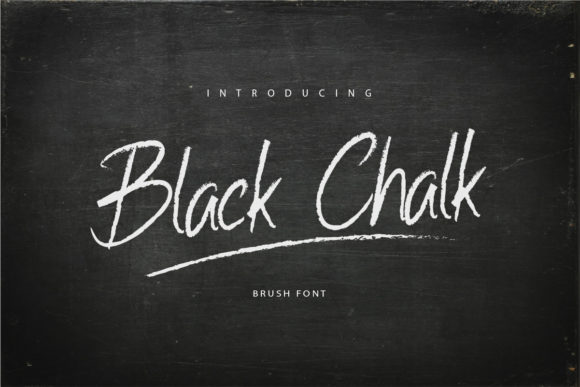
Black Chalk Font: A Unique Script for Serious and Sincere Designs
The world of typography is vast and diverse, with numerous font styles to choose from, each with its own unique character and charm. One such font that has gained popularity in recent times is the Black Chalk Font. This textured brush font, inspired by the humble chalk, is making waves in the design community for its distinctive look and feel. In this article, we’ll delve into the world of Black Chalk Font, exploring its features, benefits, and uses, as well as provide tips on how to incorporate it into your designs.
What is Black Chalk Font?
Black Chalk Font is a script font that mimics the look of chalk writing. With its textured, brush-like strokes, this font is perfect for adding a personal touch to your designs. The font is inspired by the traditional chalkboard writing, but with a modern twist. The result is a unique and eye-catching script that exudes a sense of seriousness and sincerity.
Features of Black Chalk Font
So, what makes Black Chalk Font stand out from the rest? Here are some of its key features:
- Textured brush strokes: The font features textured, brush-like strokes that give it a unique, hand-written look.
- Inspired by chalk: The font is inspired by traditional chalkboard writing, but with a modern twist.
- Script style: Black Chalk Font is a script font, perfect for adding a personal touch to your designs.
- Serious and sincere feel: The font’s distinctive look and feel make it perfect for designs that require a serious and sincere tone.
Benefits of Using Black Chalk Font
So, why should you use Black Chalk Font in your designs? Here are some benefits:
- Adds a personal touch: The font’s hand-written look and feel add a personal touch to your designs, making them more relatable and engaging.
- Creates a serious and sincere tone: The font’s distinctive look and feel make it perfect for designs that require a serious and sincere tone, such as business cards, brochures, and posters.
- Versatile: Black Chalk Font can be used in a variety of design projects, from branding and advertising to packaging and web design.
- Unique: The font’s unique look and feel make it stand out from more traditional fonts, adding a touch of creativity and originality to your designs.
How to Use Black Chalk Font
Now that we’ve explored the features and benefits of Black Chalk Font, let’s talk about how to use it in your designs. Here are some tips:
- Pair it with a simple font: To create visual interest, pair Black Chalk Font with a simple font, such as a sans-serif font.
- Use it for headings and titles: The font’s distinctive look and feel make it perfect for headings and titles, adding a touch of creativity and originality to your designs.
- Experiment with colors: Black Chalk Font looks great in a variety of colors, from bold and bright to muted and pastel.
- Use it for branding and advertising: The font’s unique look and feel make it perfect for branding and advertising projects, such as business cards, brochures, and posters.
Example 1: Business Card Design
Black Chalk Font can be used to create a unique and eye-catching business card design. Pair it with a simple font, such as a sans-serif font, and experiment with colors to create a design that reflects your brand’s personality.
Example 2: Poster Design
Black Chalk Font can also be used to create a bold and eye-catching poster design. Use it for headings and titles, and pair it with a simple font for body text.
| Font Name | Black Chalk Font |
In conclusion, Black Chalk Font is a unique and versatile script font that can add a serious and sincere feel to any design project. With its textured brush strokes and inspired-by-chalk look, this font is perfect for designers who want to add a personal touch to their designs. Whether you’re working on a branding project, advertising campaign, or packaging design, Black Chalk Font is definitely worth considering.